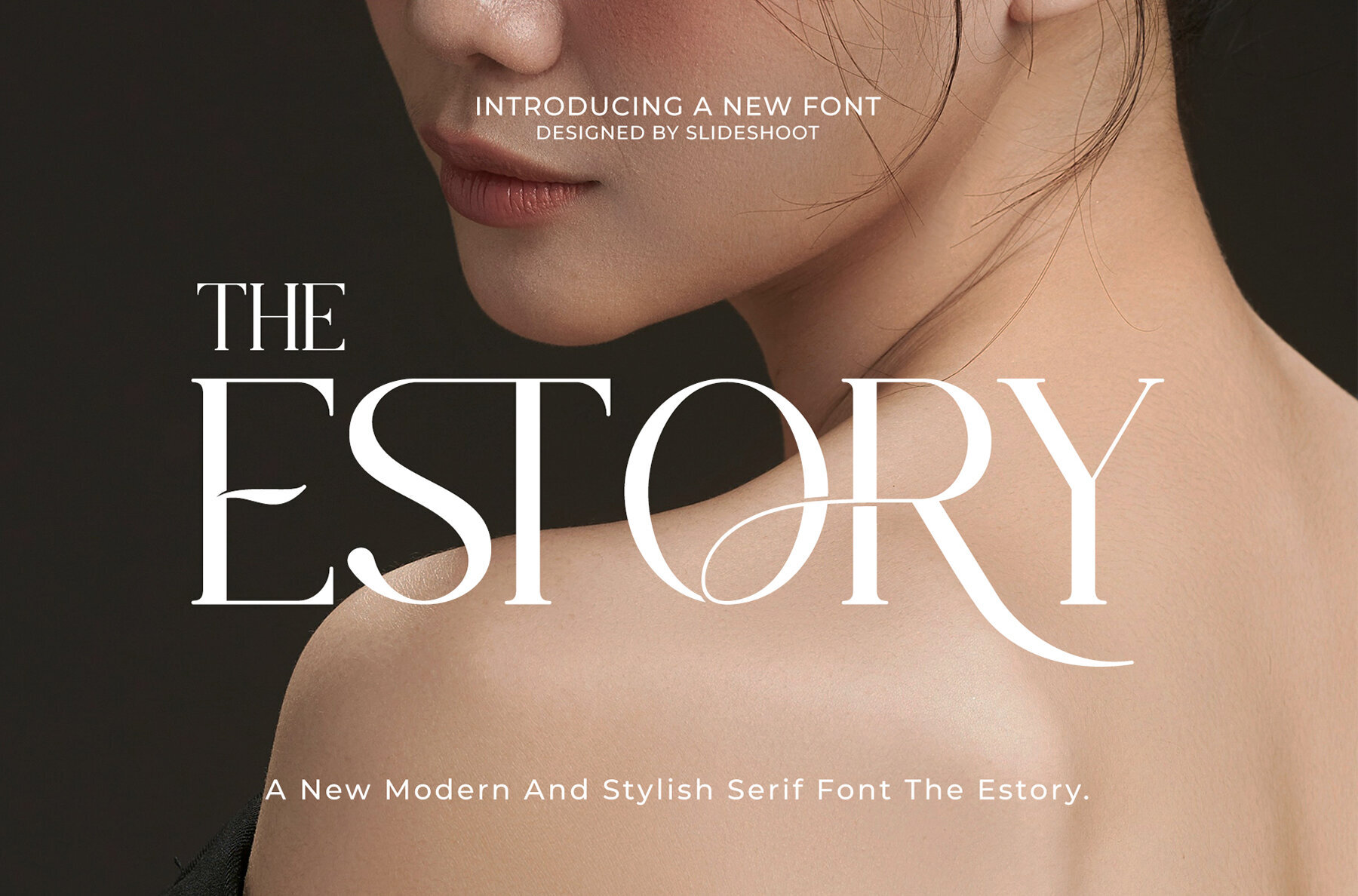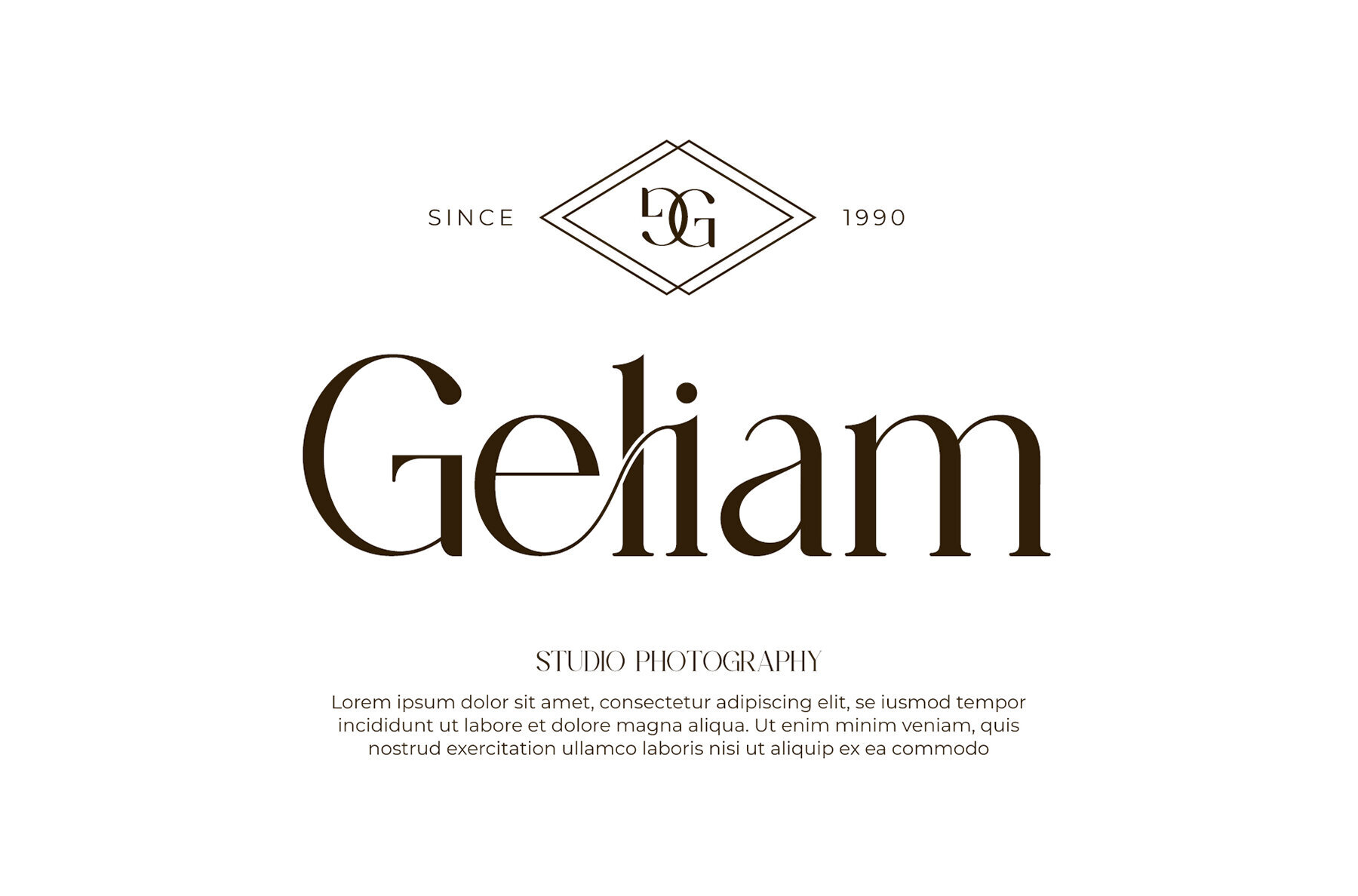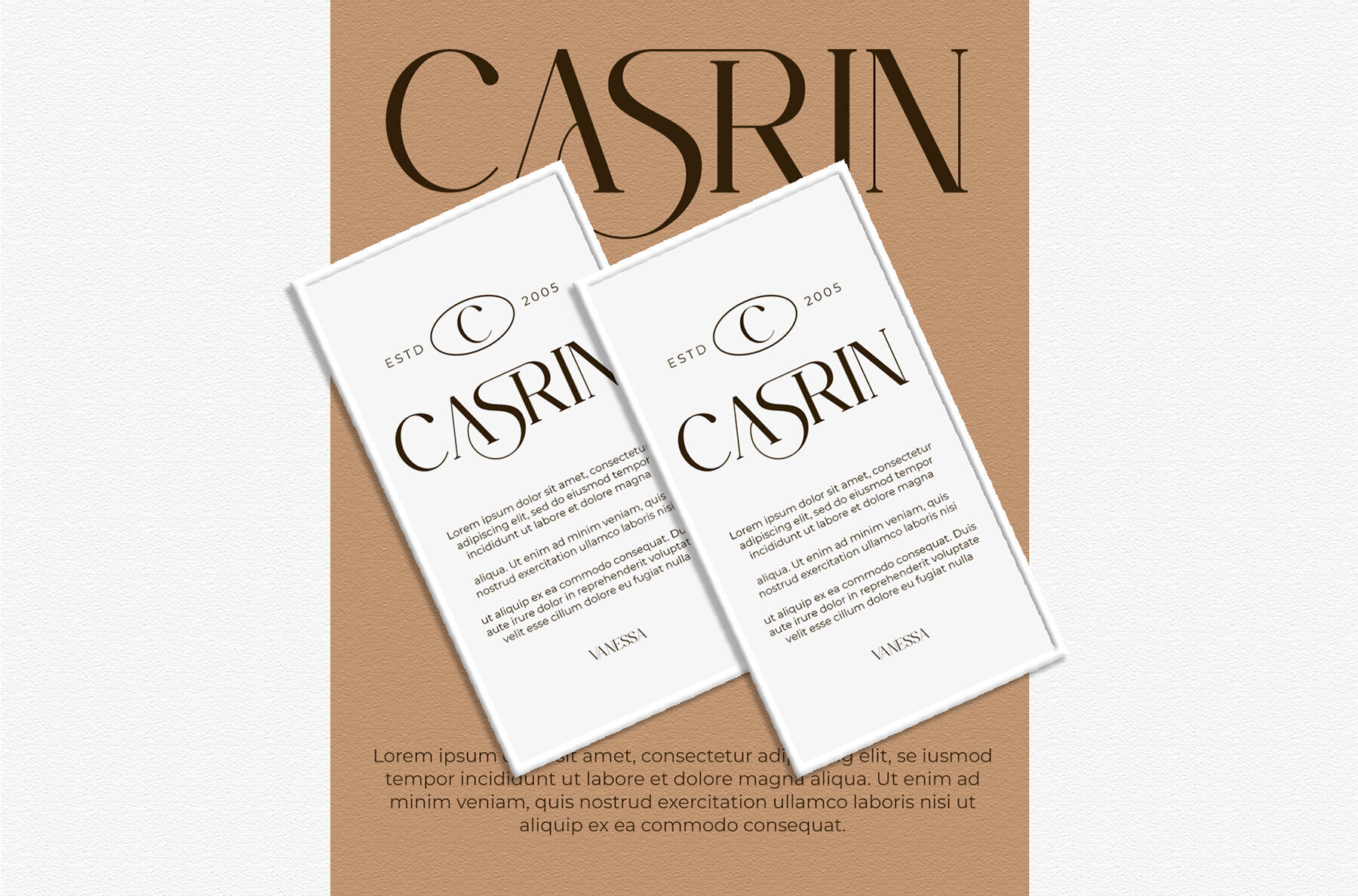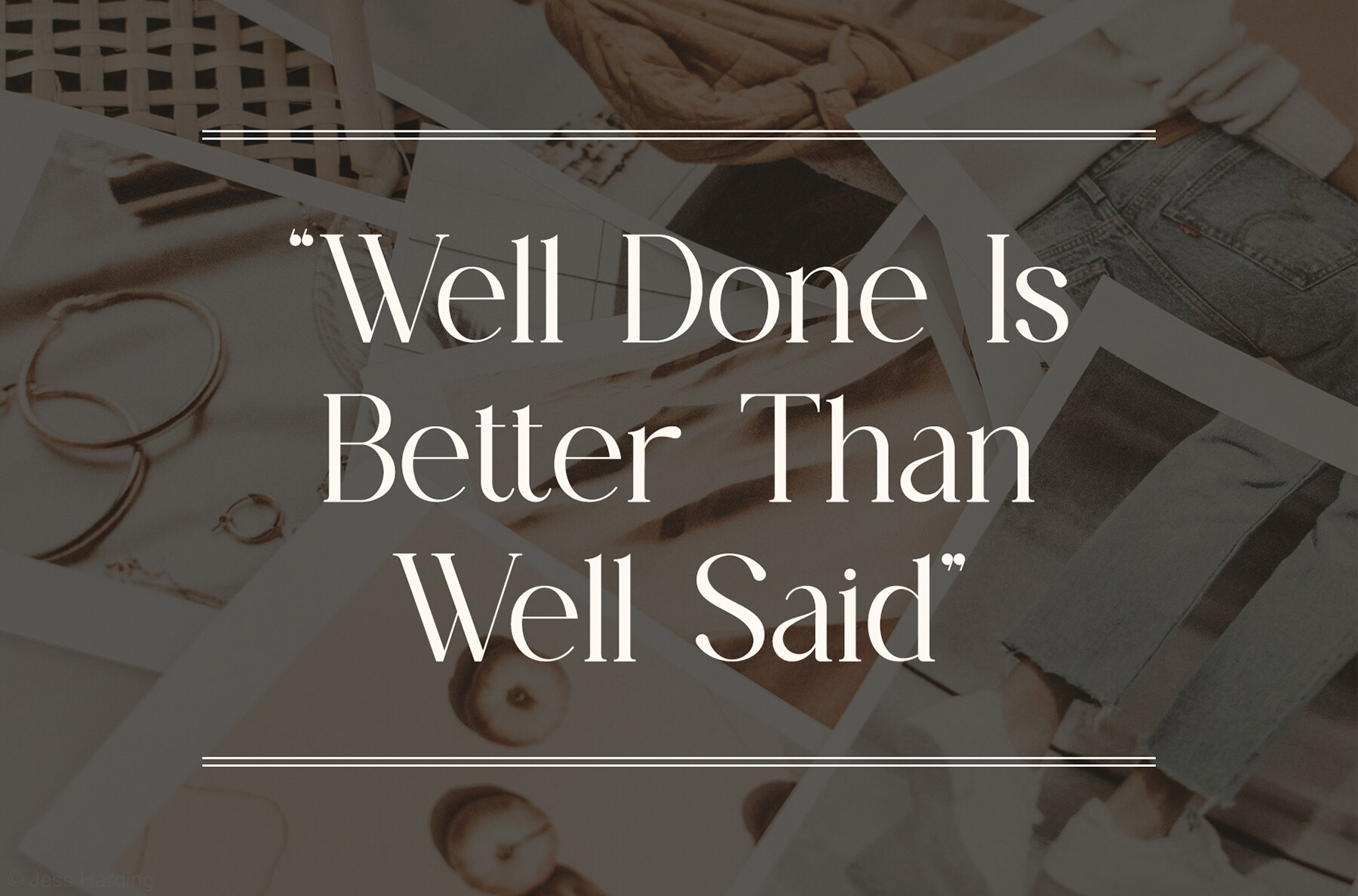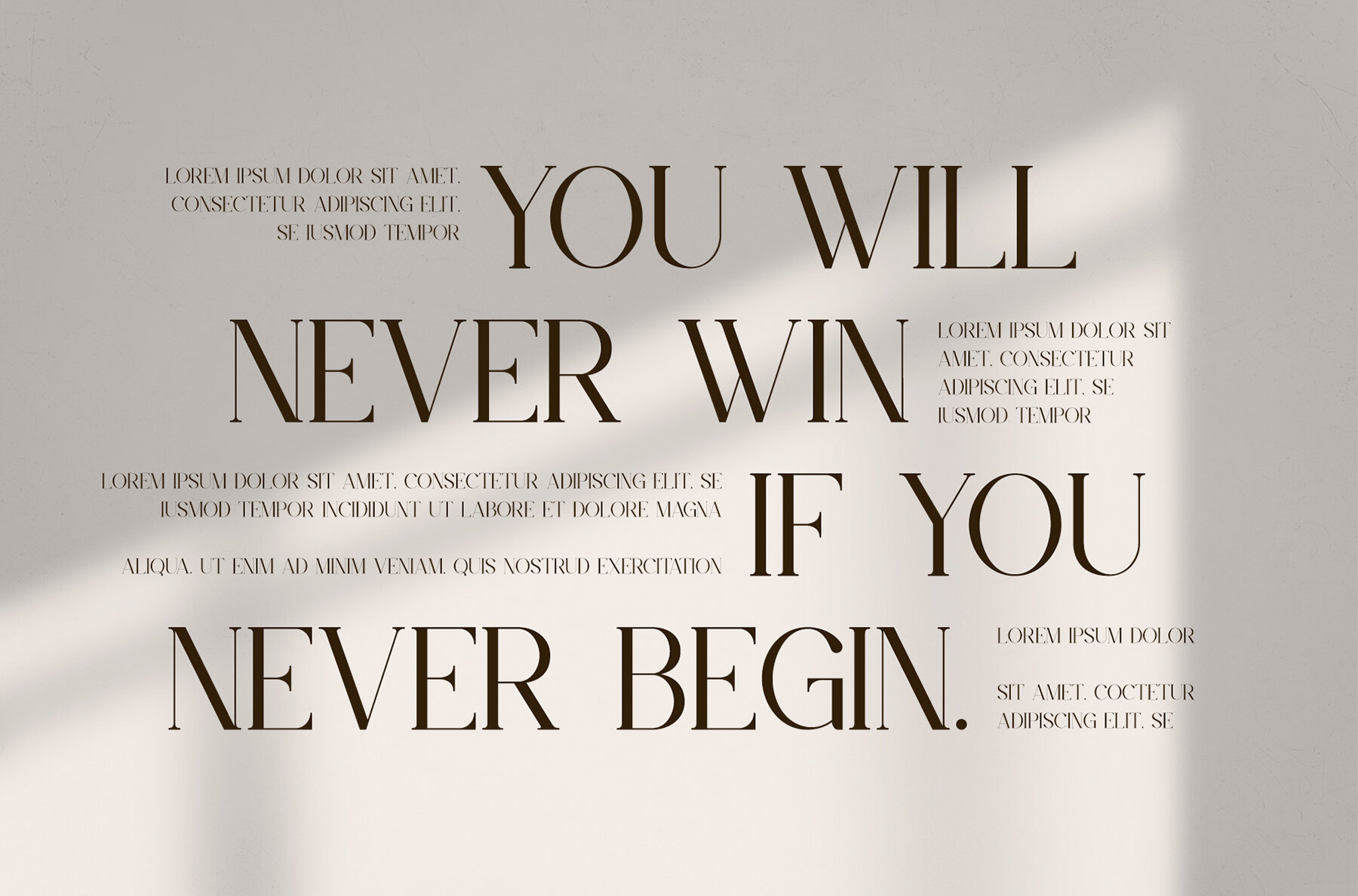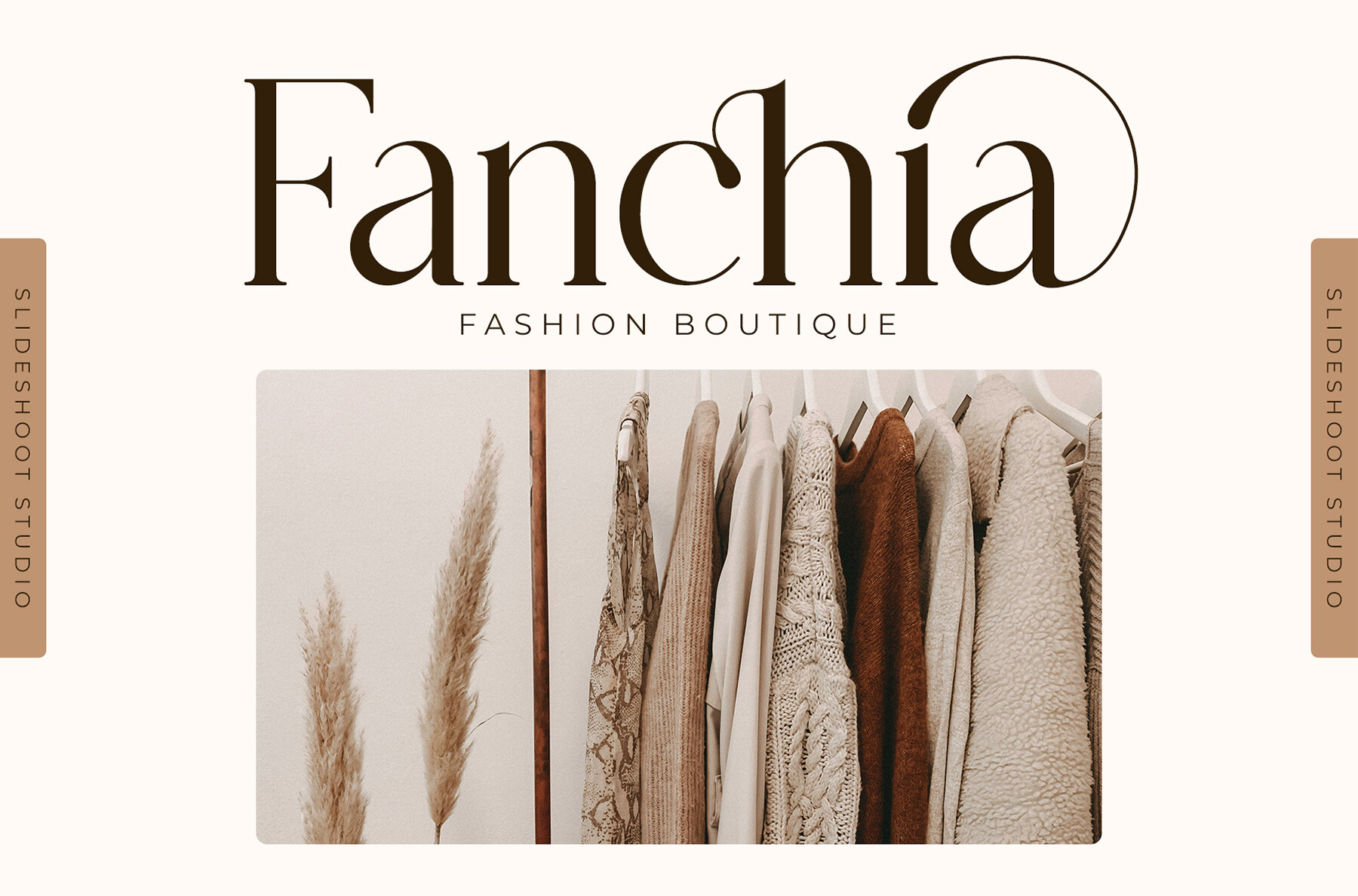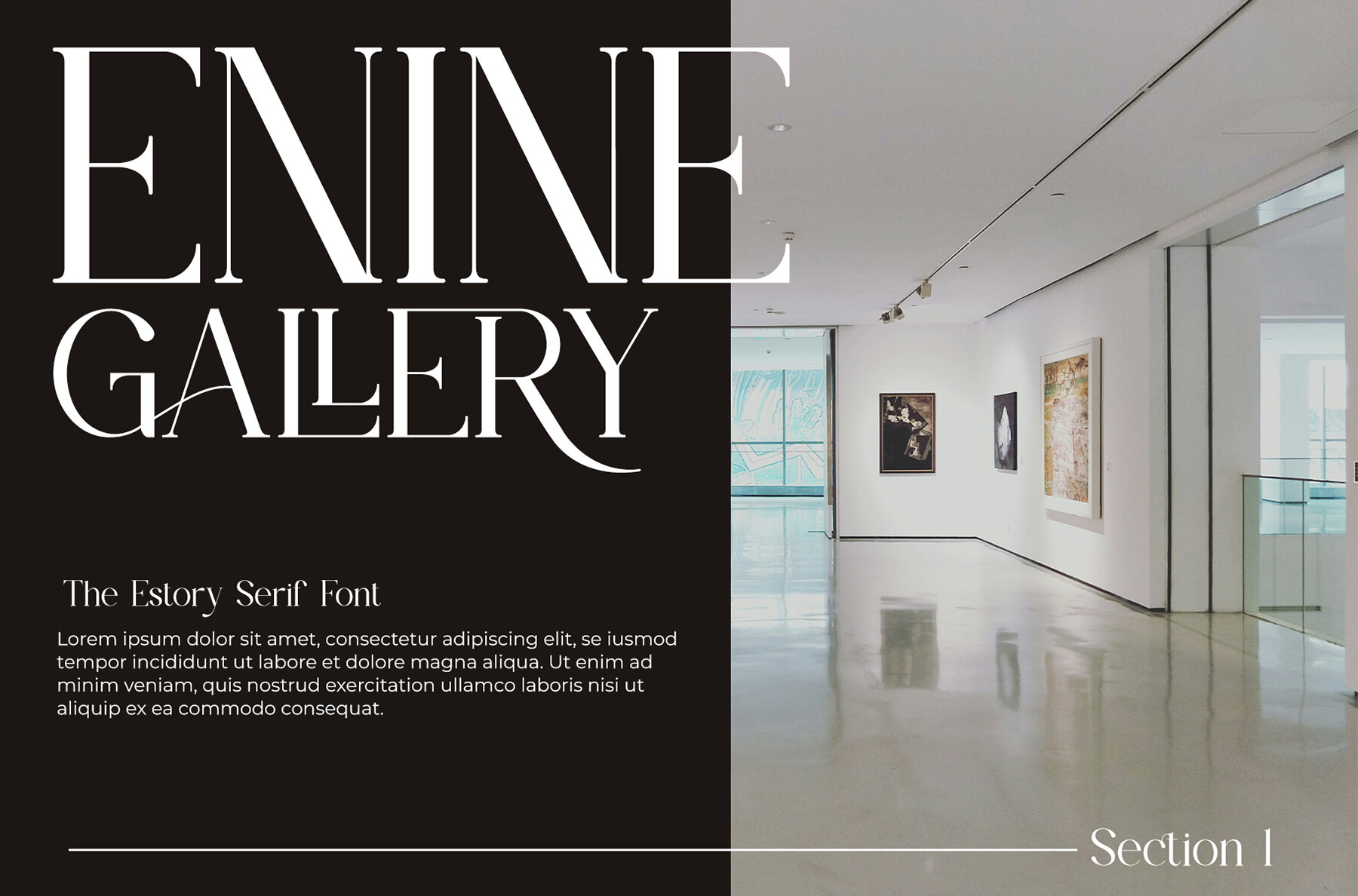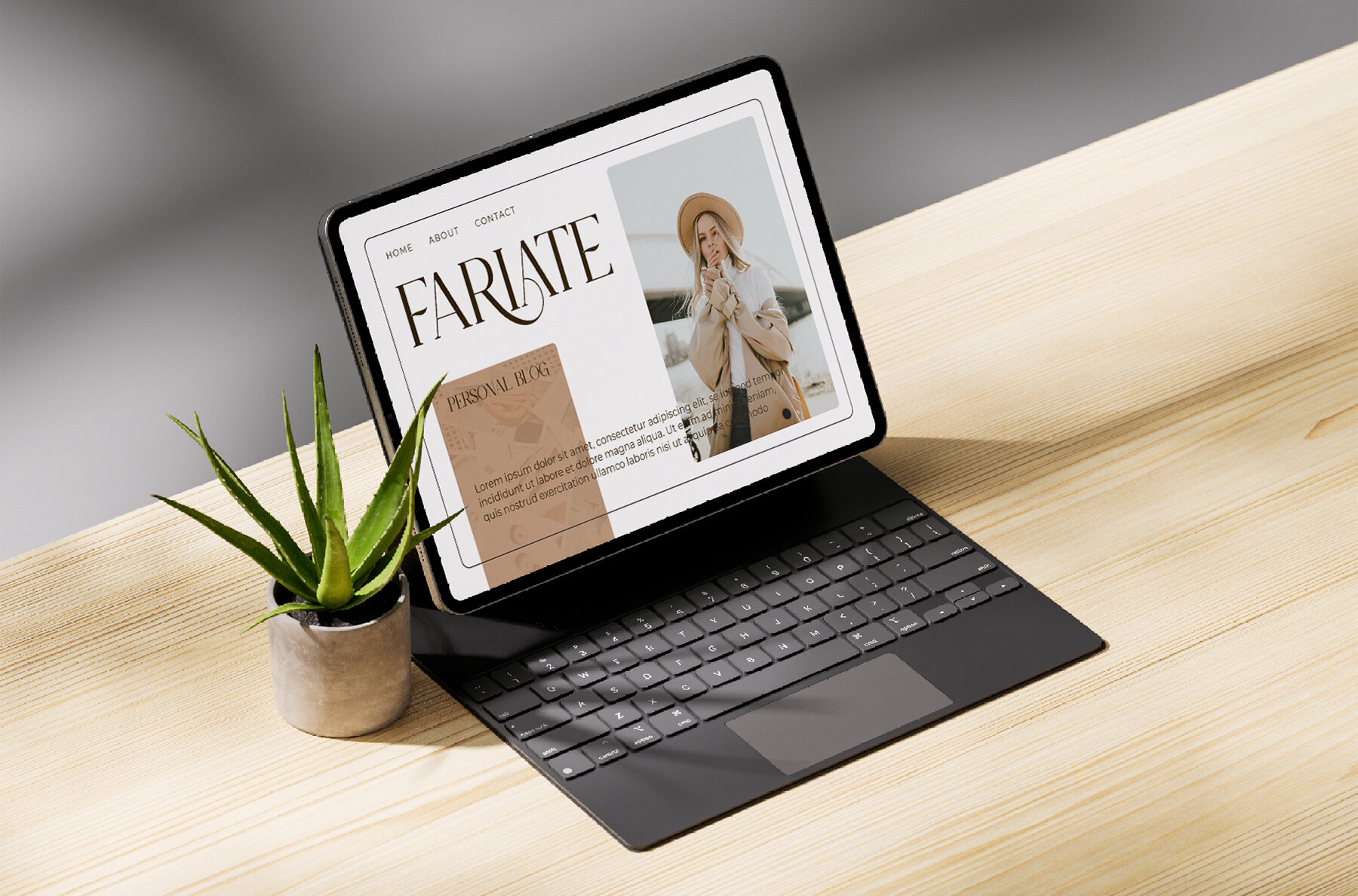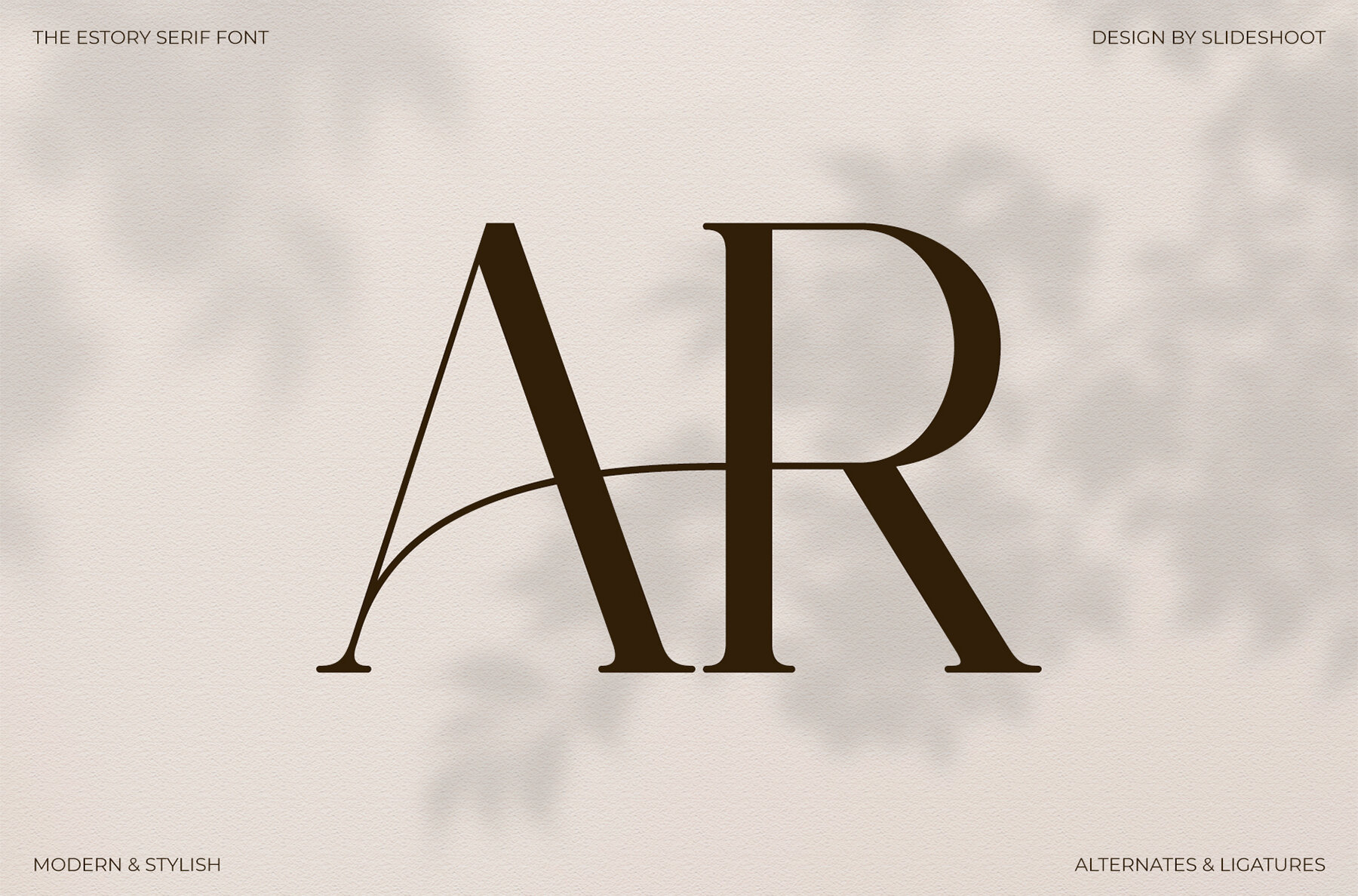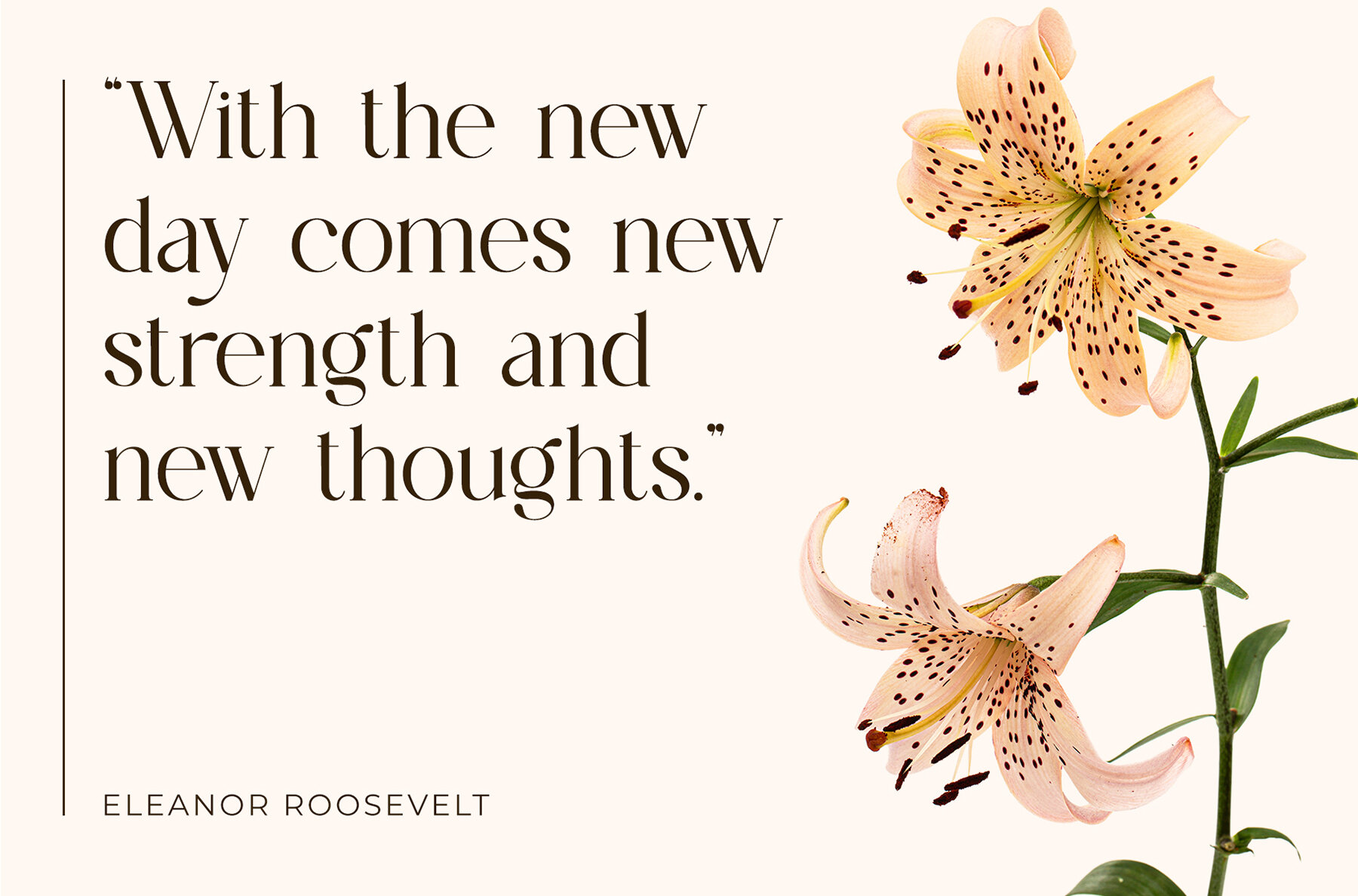
The Estory Font
The Estory Regular
The Estory Serif font is a refined, elegant typeface crafted for designers seeking a touch of sophistication in their projects. This smooth and stylish serif font is well-suited for a range of applications, from invitation card designs and company logos to movie titles and business cards. It exudes a sense of elegance and balance, making it a versatile choice for brand names and book titles.
The font features stylish alternations and ligatures, providing a unique and captivating aesthetic. It includes a full set of uppercase and lowercase characters, along with numbers and punctuation marks. Designed for both PC and Mac, The Estory Serif font offers simple installation and compatibility with leading design software including Adobe Illustrator, Adobe Photoshop, Adobe InDesign, as well as Microsoft Word. Its subtle design elements make it an ideal partner for a wide array of creative projects, enhancing the overall visual impact.